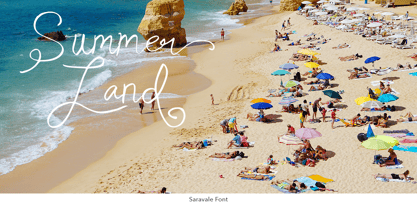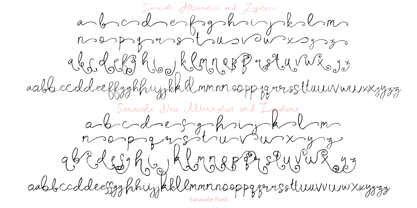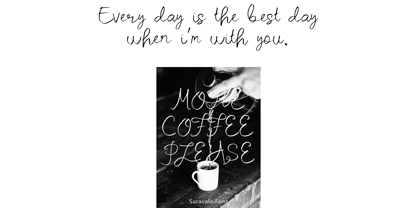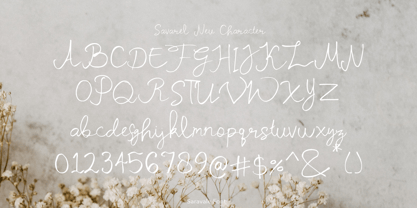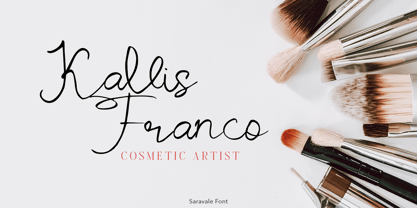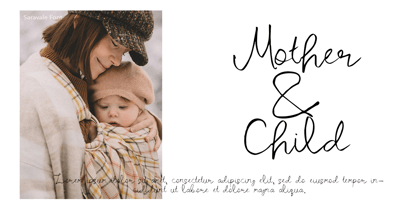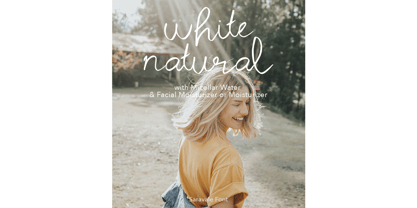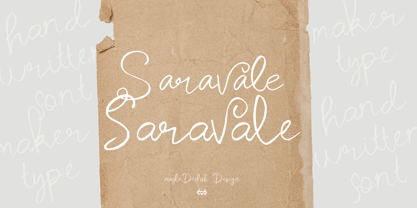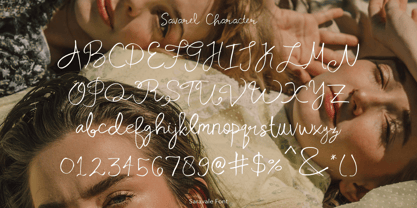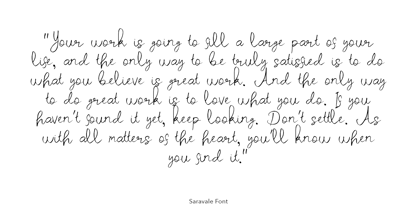
Saravale
by madeDeduk
The Saravale Font Family was designed by madededuk and published by madeDeduk. Saravale contains 2 styles and family package options. More about this family
Really excited to introduce Saravale and Saravale Neu is a realistic handwritten font to give an incredible impression for all your project design come with ligatures and Alternative to make everything look realistic handmade handwritten.
Designers: madededuk
Foundry: madeDeduk